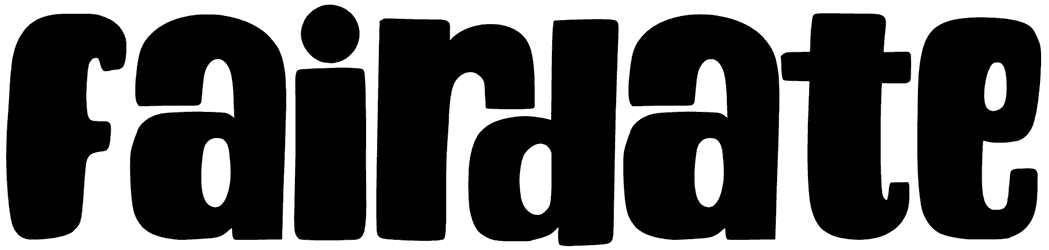
Cogeen Font
Cogeen is a trendy cartoon font that looks really great on a vast majority of graphic creations, including book covers, movie posters, illustrations, and video game banners. We offer you to overlook the lack of numbers to add a sense of softness, love, playfulness, and vivacity to your graphic content by utilizing this typeface.
Designed by: Twinletter